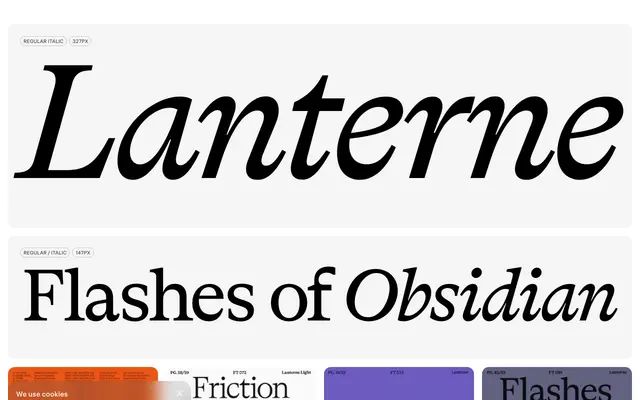
Lanterne
Family Type · Abel Martins · 2024
A 12-style transitional serif by Abel Martins, designed at Family Type in 2024 with broad Latin language coverage and an extensive OpenType feature set.
Released by Family Type in 2024, Lanterne is a transitional serif in 12 styles that spans Regular and Bold weights with matching italics. The family includes small caps, oldstyle figures, discretionary ligatures, fractions and two stylistic sets, making it well-suited to editorial and text work that demands typographic depth. Language support runs across several dozen Latin-script languages, with additional coverage of Greek and Thai.
The letterforms shown in the specimen, including the italics and the contrast between thick and thin strokes, point to a transitional serif. The name and lighthouse-themed specimen copy suggest a refined, classical-leaning design.